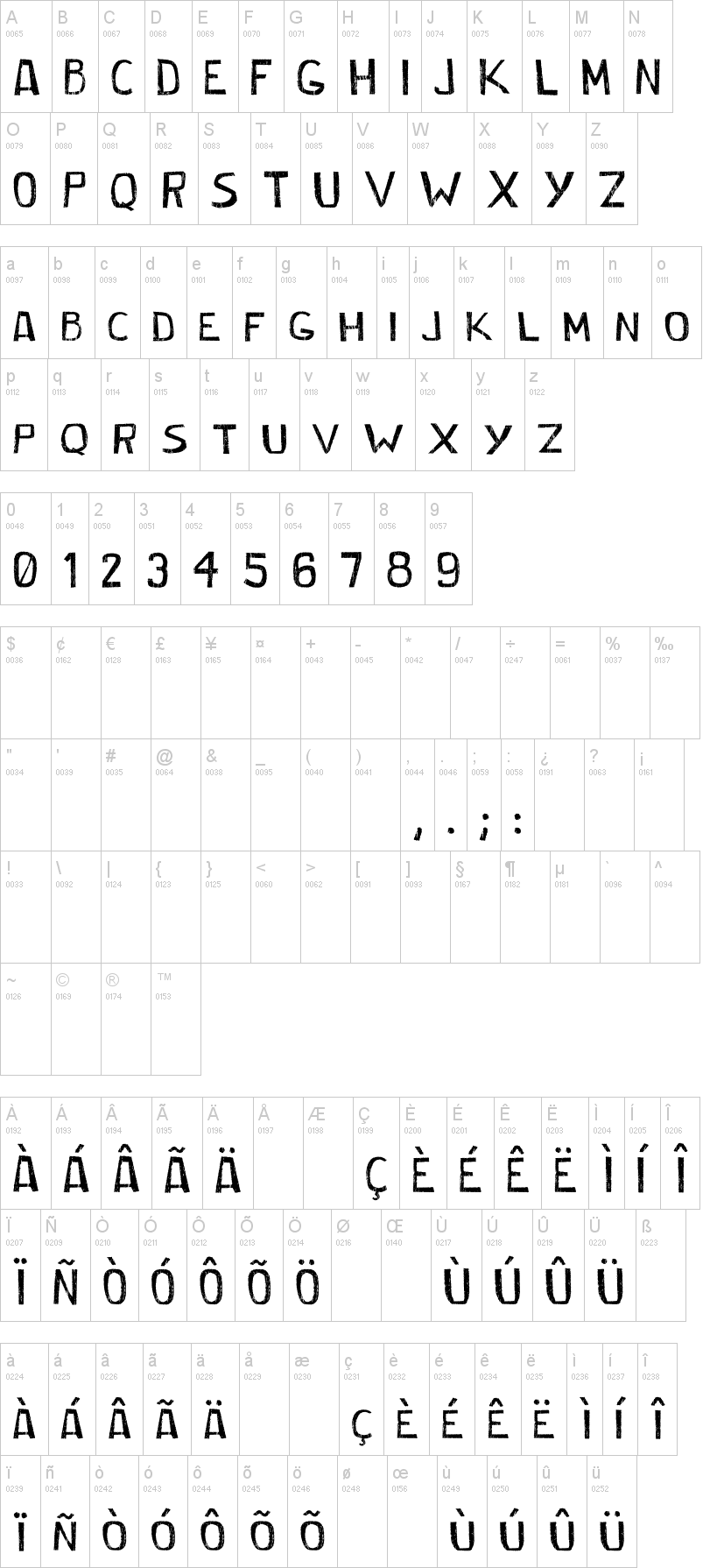
Note of the authorA woodcut style typefont that pays homage to J. Borges, a Brazilian artist who's specialises in the "Literatura de cordel" which consists of written verses and woodblock prints illustrating the rhymed stories.